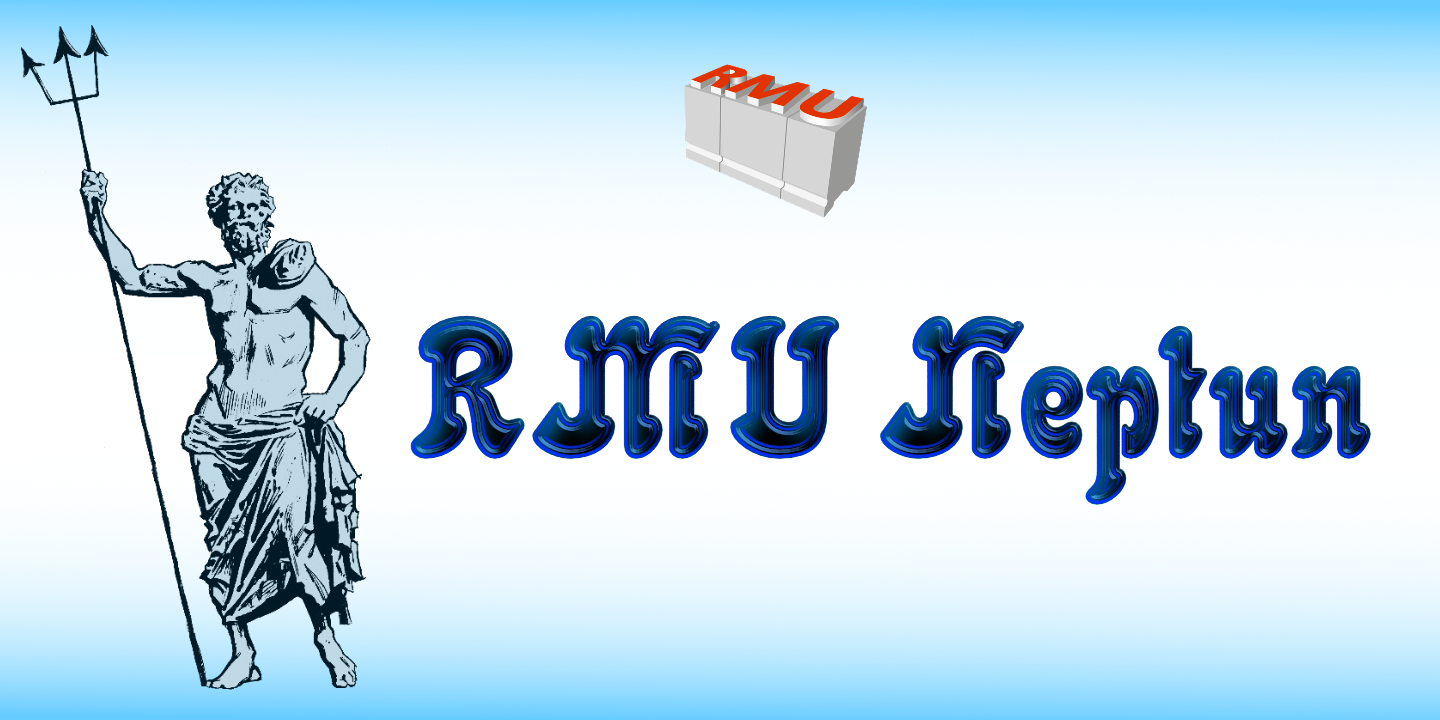
RMU Neptun Font is perfect for marine biology research presentations, oceanic expedition branding, underwater adventure tourism, aquarium educational materials, deep-sea exploration company logos, maritime research institute communications, naval academy publications, coastal marine conservation campaigns, submarine technology advertising, and aquatic science museum displays. Its majestic oceanic character makes it ideal for projects requiring deep-sea authority and marine scientific authenticity.
What makes RMU Neptun Font exciting is its powerful embodiment of oceanic majesty and deep-sea exploration with flowing letterforms and aquatic characteristics that capture the essence of marine discovery and underwater adventure excellence. The font features wave-inspired curves, depth-suggesting stroke patterns, and oceanic character construction that create authentic maritime atmosphere and deep-sea appeal. Its majestic personality brings authority and mystery to contemporary designs while maintaining the clarity essential for scientific communications and marine presentations. The carefully crafted oceanic elements ensure visual depth while preserving the distinctive character that embodies the essence of marine exploration and oceanic excellence.
RMU Neptun Font comes in multiple oceanic variations including Light, Regular, Medium, Bold, and Deep styles. Each family member maintains the distinctive marine character while offering comprehensive flexibility for oceanic typography and maritime brand system development. The complete font family includes alternate characters, marine symbols, and aquatic decorative elements that provide extensive tools for creating immersive oceanic design experiences and authentic marine brand storytelling.
Whether you're developing marine organizations, oceanic research projects, or underwater adventure brands, RMU Neptun Font Free Download provides the majestic authority needed to communicate with marine enthusiasts and oceanic professionals who appreciate deep-sea exploration and marine scientific excellence. The font's oceanic appeal resonates with marine biologists, underwater explorers, and aquatic researchers seeking authentic maritime credibility and oceanic sophistication. Its comprehensive character set includes marine symbols and oceanic marks, making it perfect for creating complete maritime brand systems and memorable oceanic storytelling across diverse marine applications and deep-sea design projects that celebrate ocean exploration and marine science excellence.